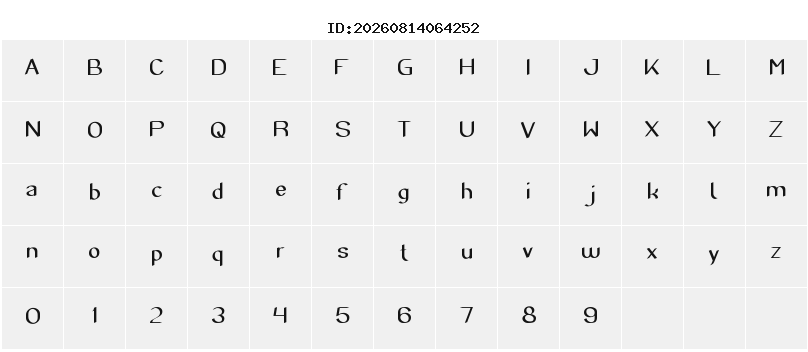
Super Creative Preview
• Font Name: Super Creative
• Full Font Name: Super Creative
• Version: Version 1.00 June 24, 2013, initial release
About Super Creative.ttf
Super Creative.ttf is a modern, elegant sans-serif font designed for ultimate readability and visual harmony. Perfect for branding, headlines, web design, and print materials.